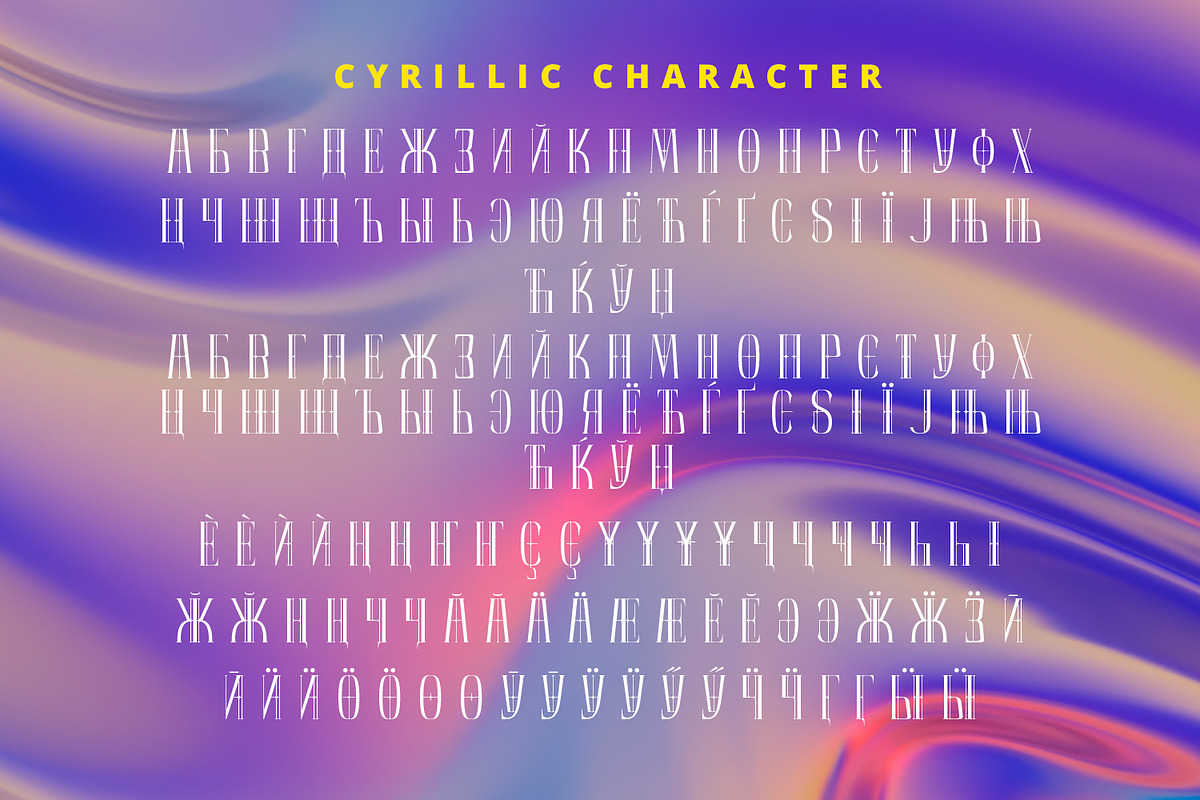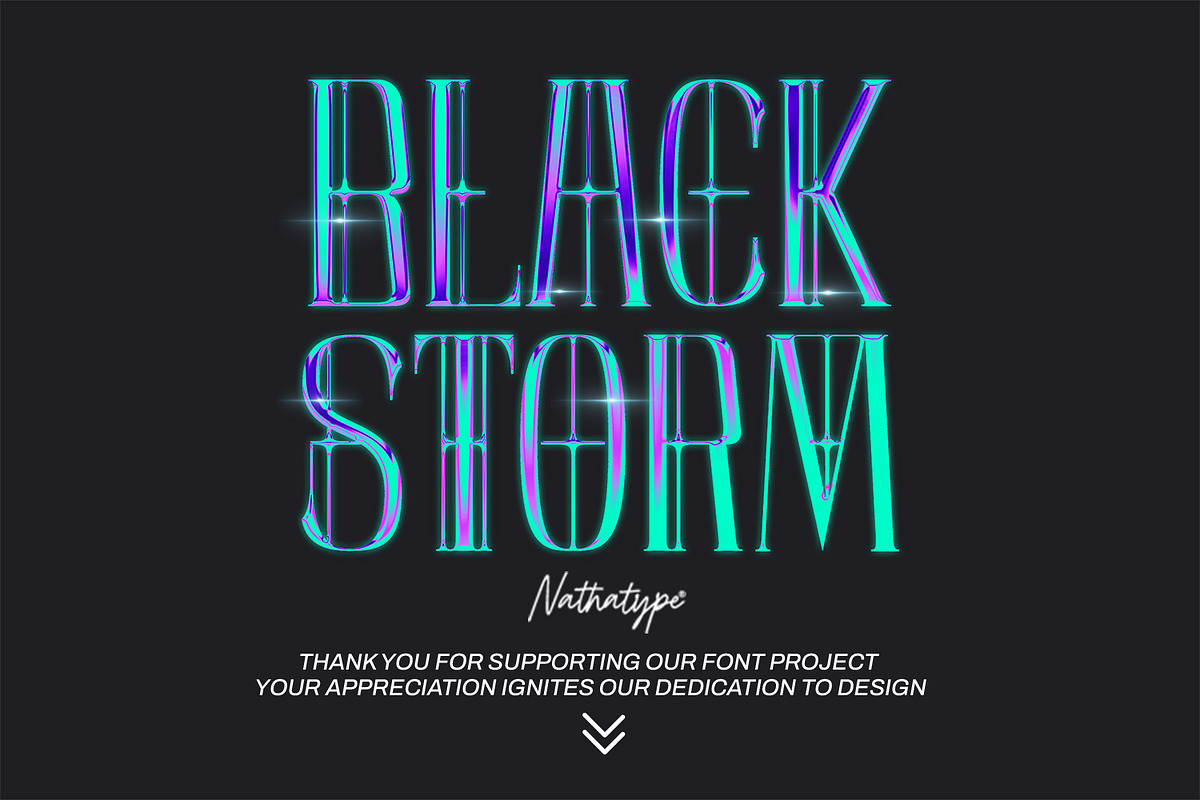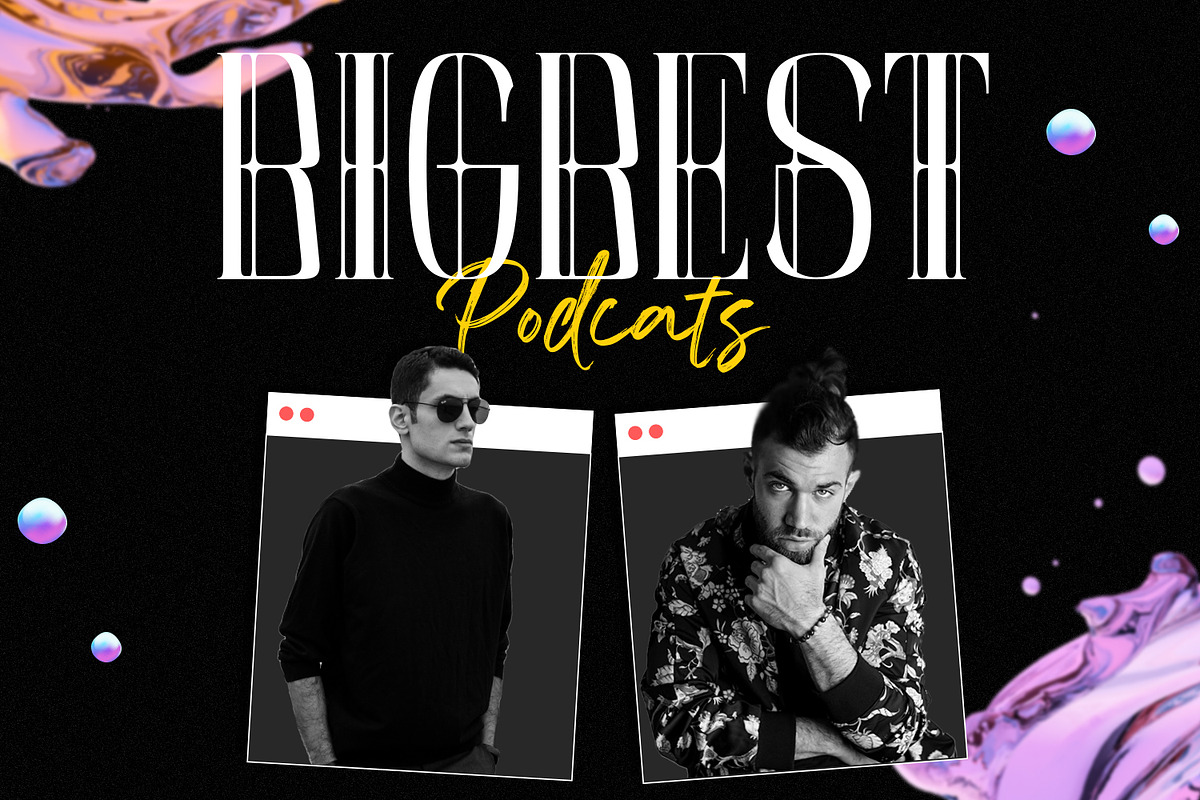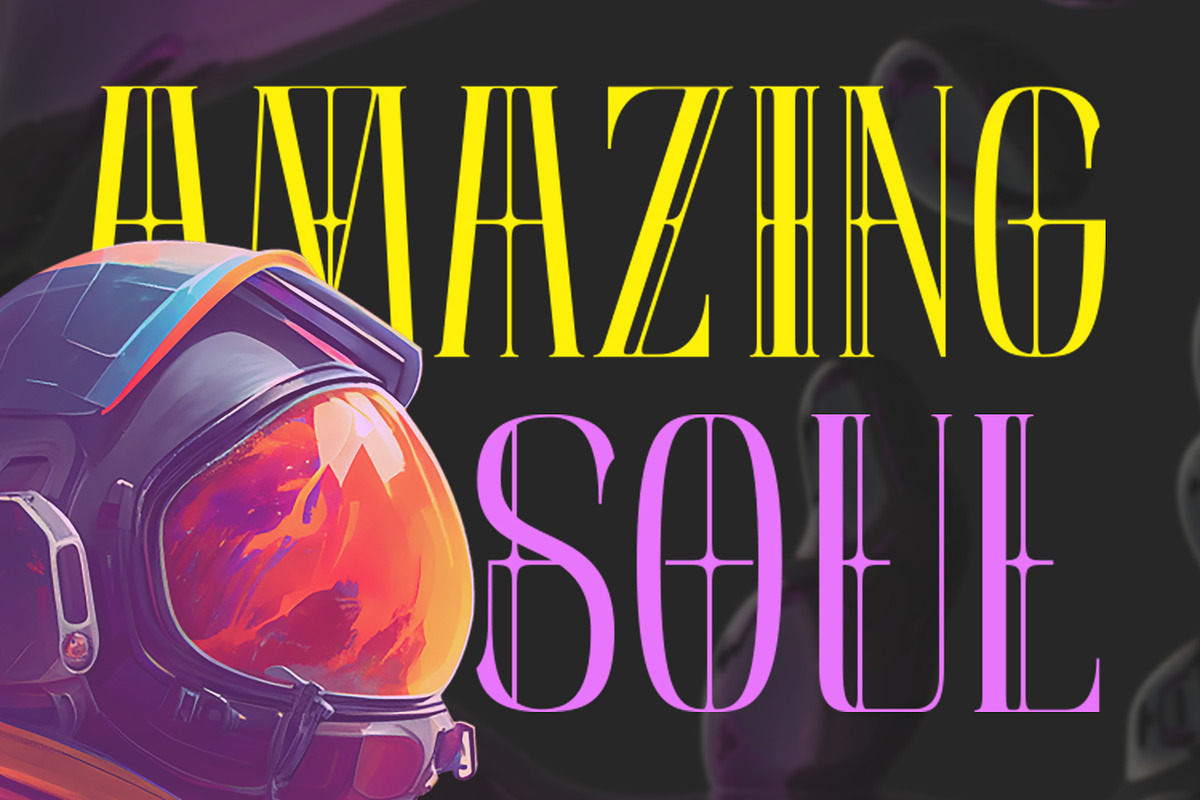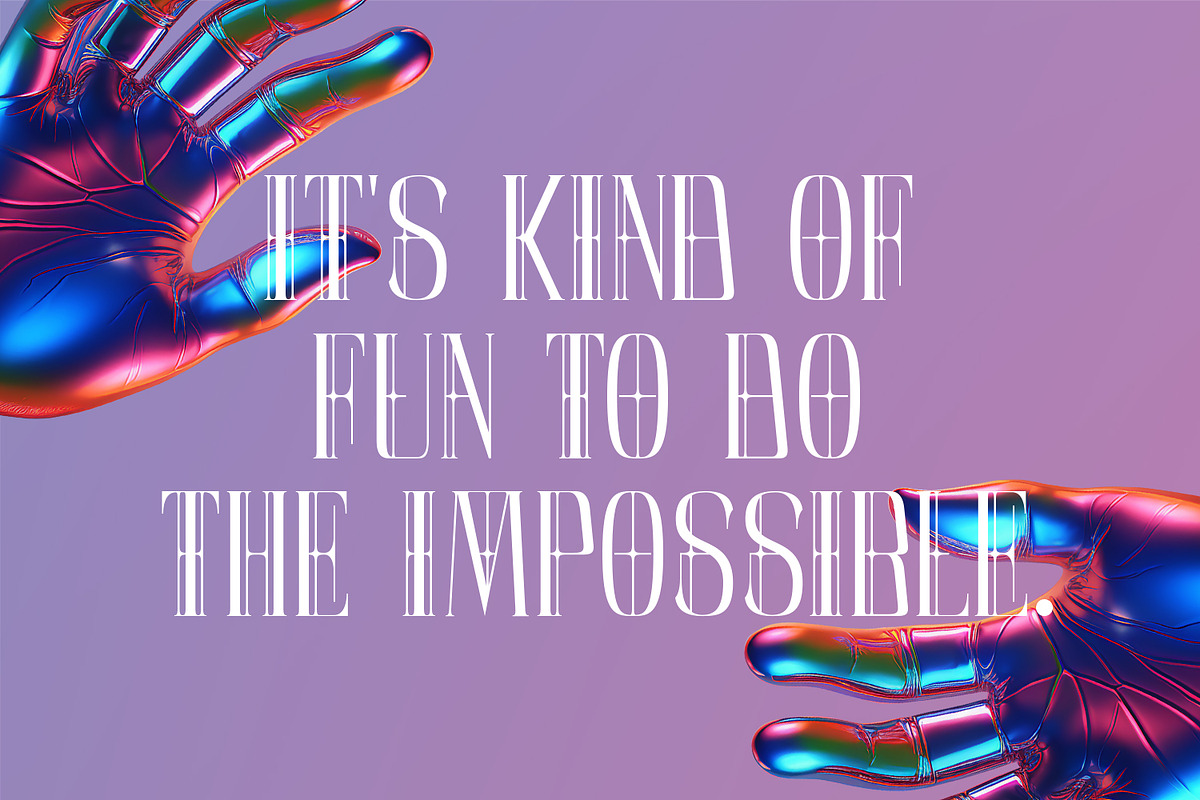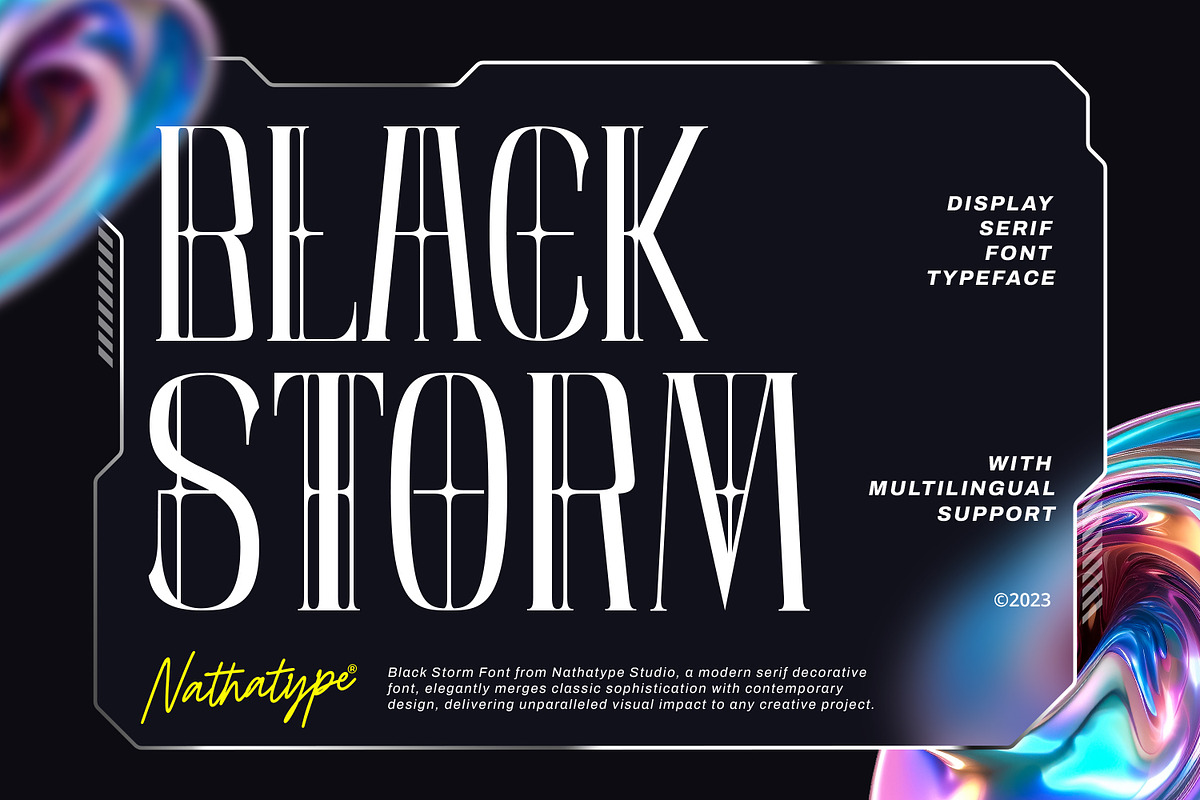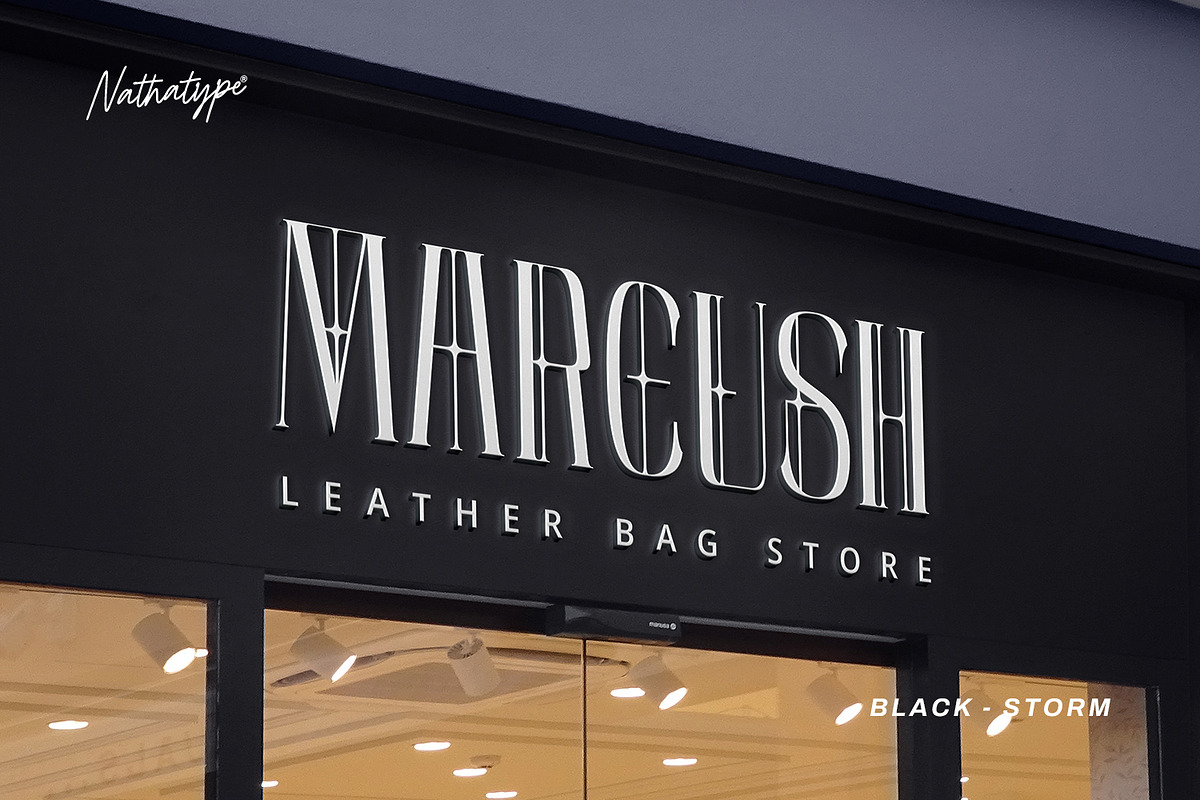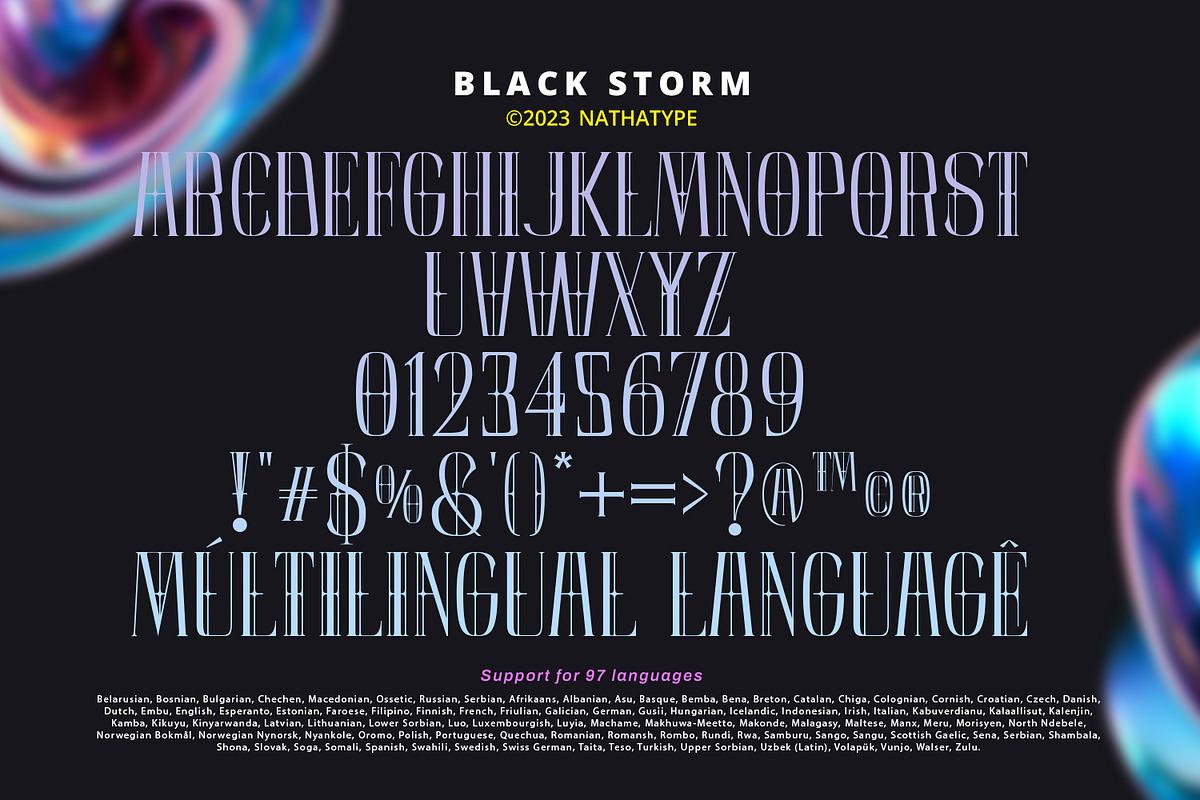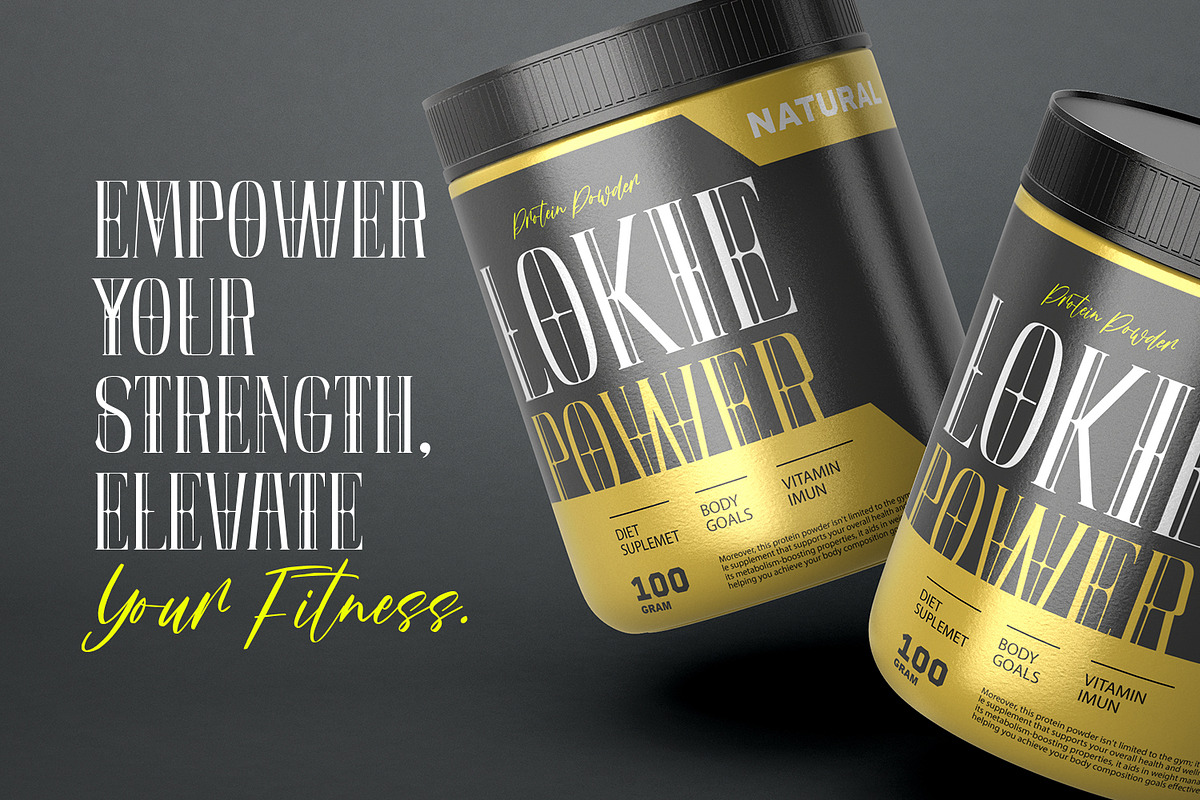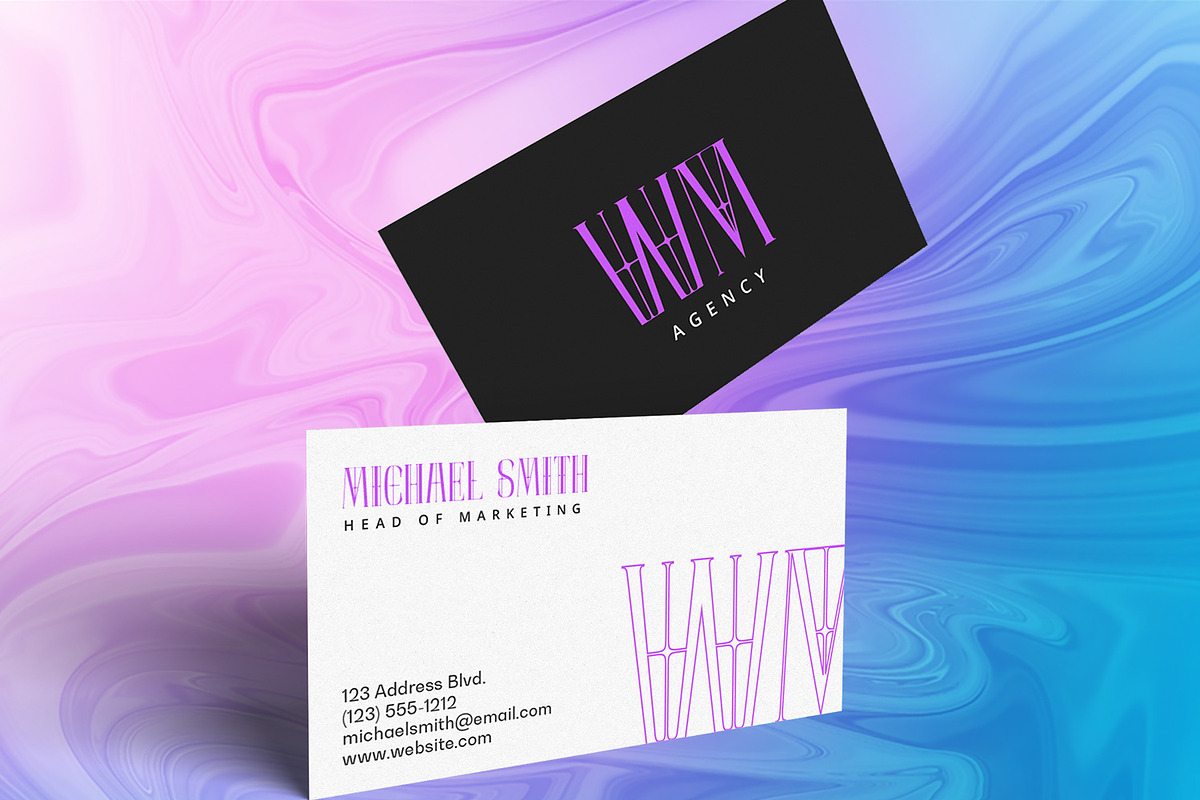
Black Storm
Black Storm, a captivating serif display font, commands attention with its bold presence and refined aesthetics. It's a versatile tool that empowers your projects with a sense of authority and intricate detailing.
The characters in Black Storm are boldly large, ensuring a striking visual impact suitable for attention-grabbing designs. The stable letter size contributes to a balanced and authoritative aesthetic. What elevates Black Storm to new heights is the thoughtful incorporation of additional lines and ornaments, meticulously placed to create a harmonious blend of structure and embellishment. In addition, enjoy the features here.
Black Storm fits in headlines, logos, posters, flyers, branding materials, greeting cards, print media, editorial layouts, and many more designs. Find out more ways to use this font by taking a look at the font preview.